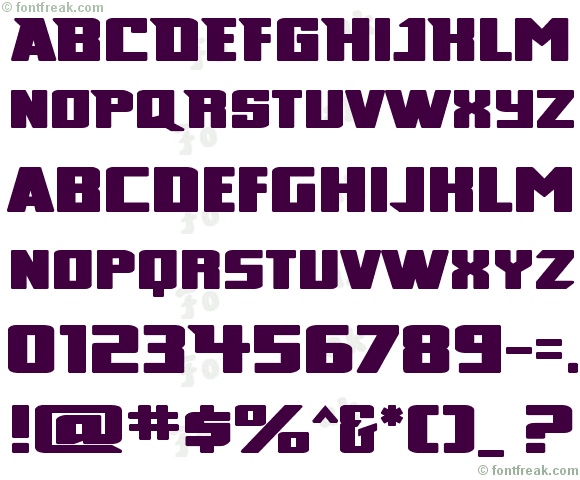
Broad
Broad Daylight
About Broad
Broad font, created by Apostrophic Labs in 2001, is a striking display typeface that stands out in various design contexts. As a sans-serif font, it features a clean and modern aesthetic that is visually appealing and versatile. The Broad font showcases a bold stroke weight, which provides a strong presence, making it ideal for attention-grabbing headlines and titles. Its minimal contrast and well-balanced spacing enhance readability while maintaining a contemporary look. The font's geometric shapes contribute to its straightforward elegance, making it suitable for a wide range of applications.
This font is particularly effective for use in advertising materials, promotional posters, and branding projects. Its commanding visual style makes it a fantastic choice for restaurant menus that want to convey a modern vibe, or for event flyers that require a bold statement. Additionally, Broad is an excellent option for website headers where clarity and impact are essential. Graphic designers and small business owners will find this font to be an invaluable asset in their creative toolkit, as it adapts well to various design trends.